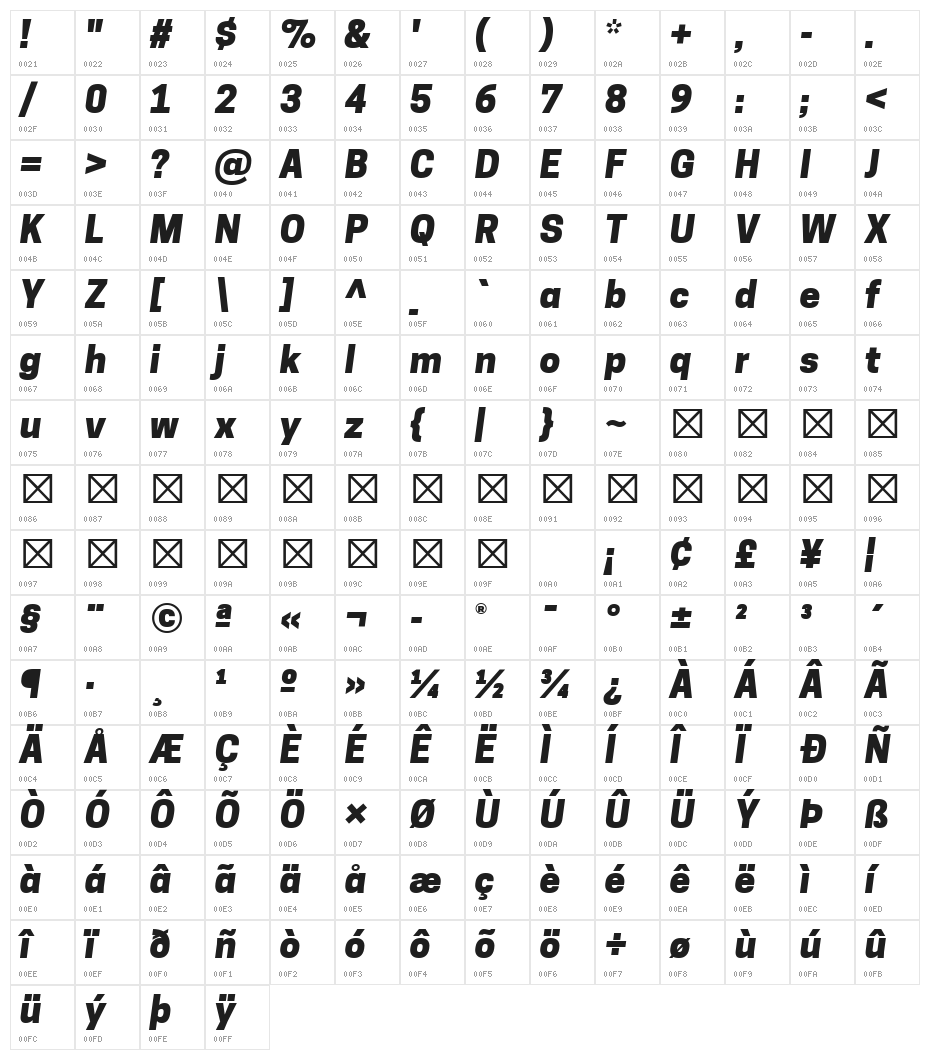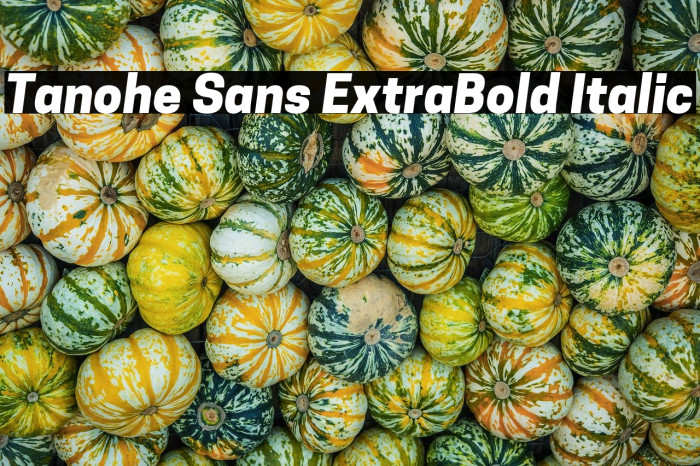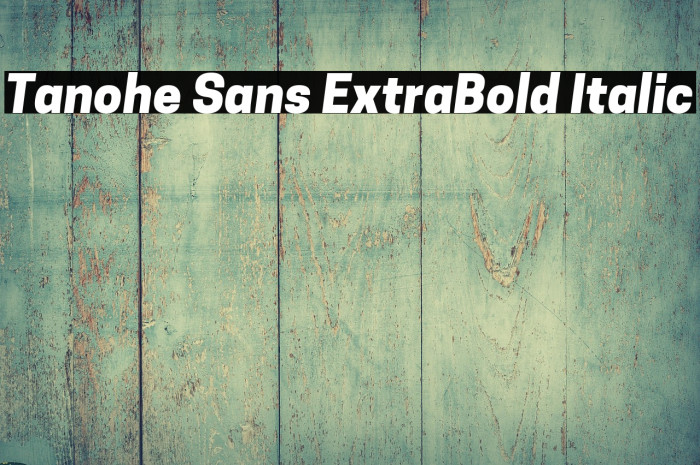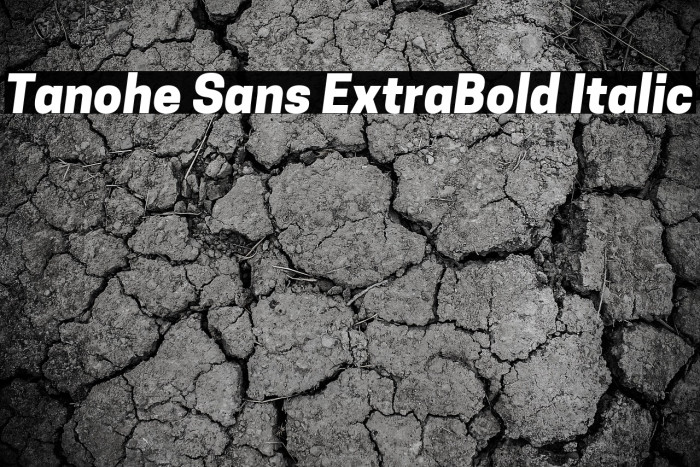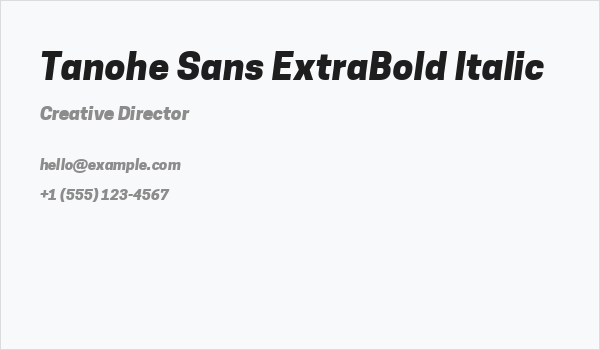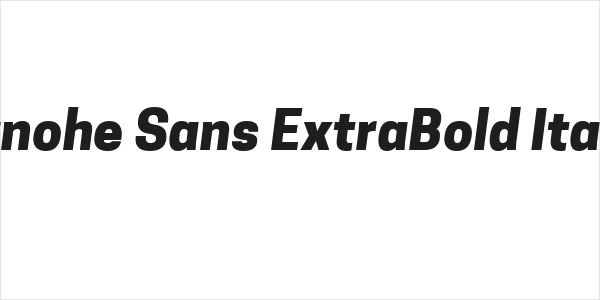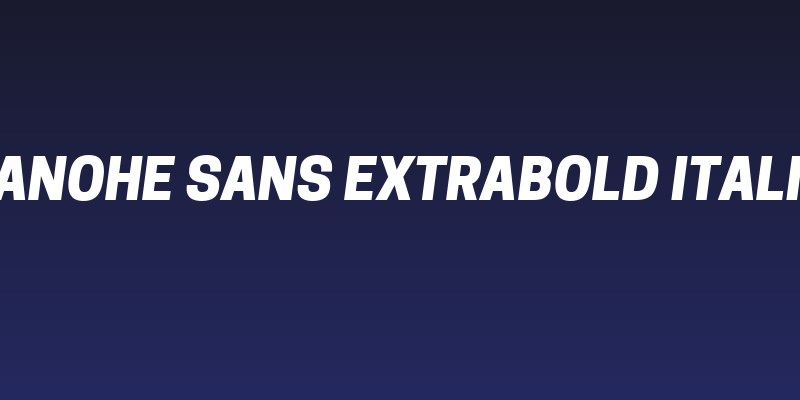
Tanohe Sans ExtraBold Italic Font
Tanohe Sans ExtraBold Italic Description
This typeface features a bold and italicized style, offering a strong and dynamic presence. The characters are sans-serif, providing a clean and modern look. The strokes are thick and consistent, contributing to the boldness of the font. The italic slant adds a sense of motion and emphasis, making it suitable for attention-grabbing headlines. The uppercase and lowercase letters maintain a uniform width, ensuring readability. The numerals are equally bold, matching the overall aesthetic. Special characters are included, maintaining the same weight and style, ensuring versatility in various design contexts.
| Use Case | Headlines, Logos, Advertising |
| Proposed Projects | Ideal for branding, advertising, and headlines where a strong and modern impression is desired. |